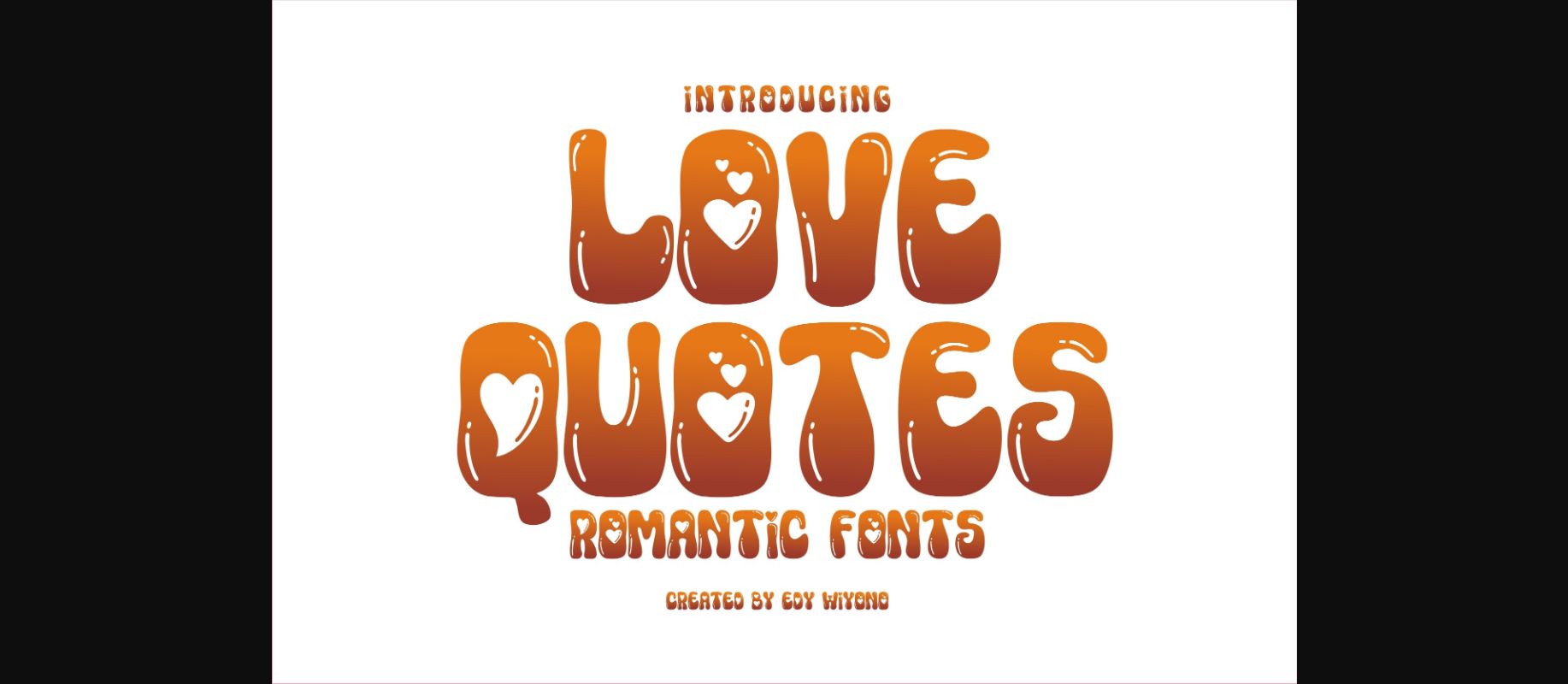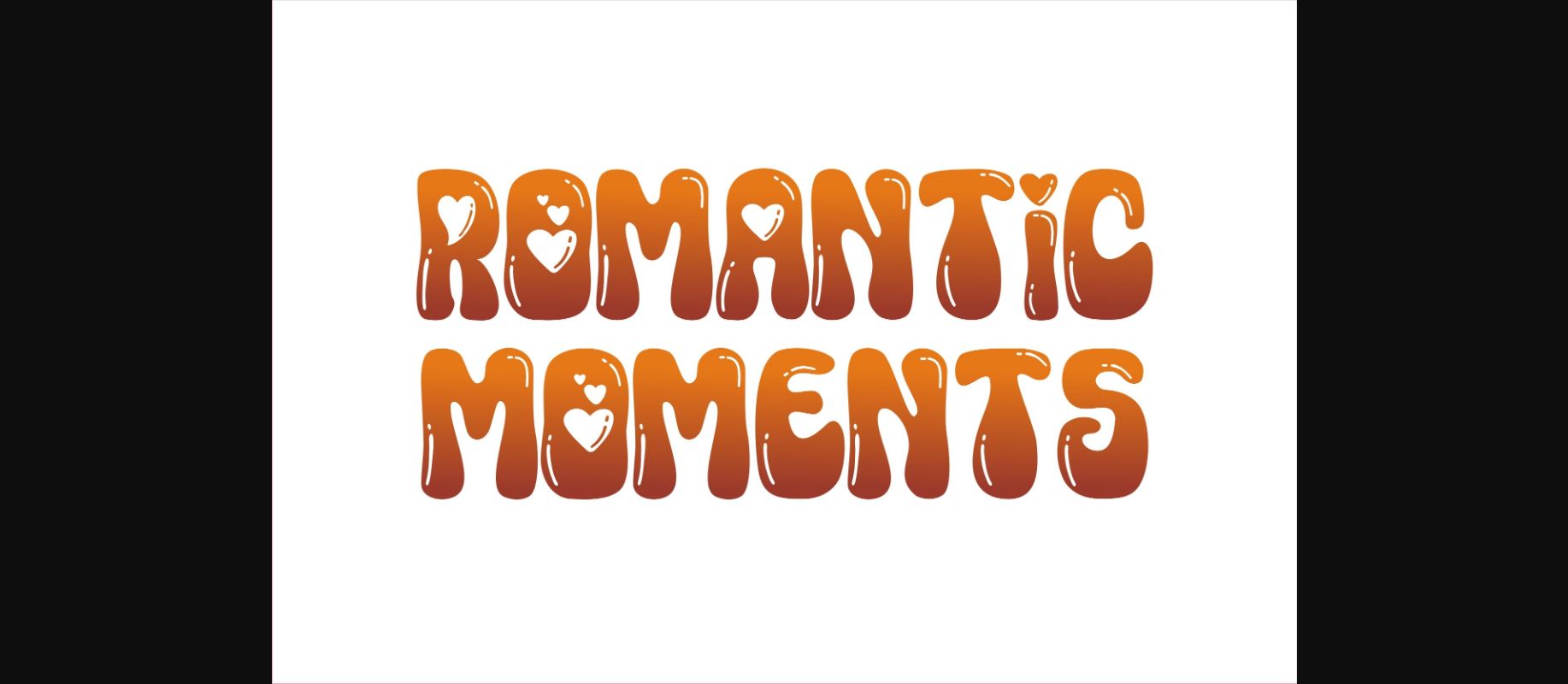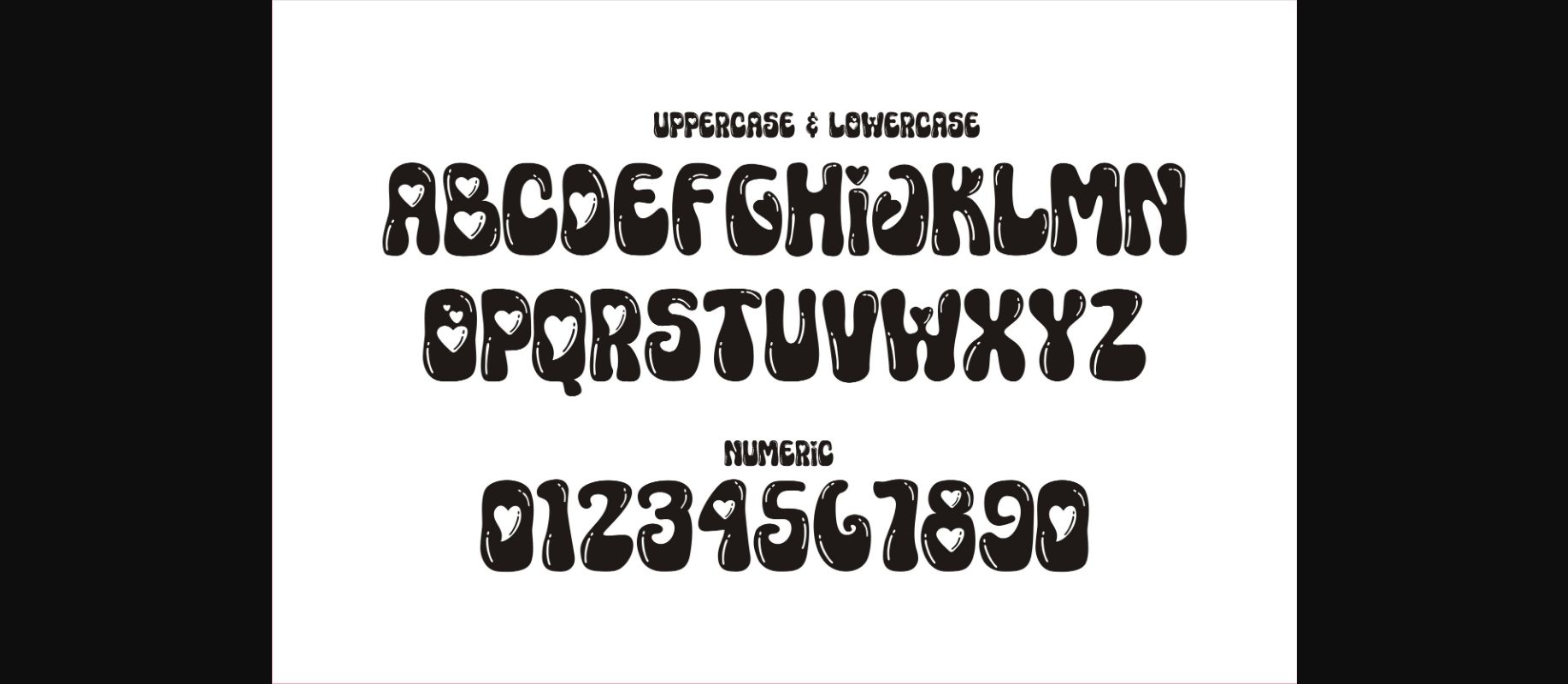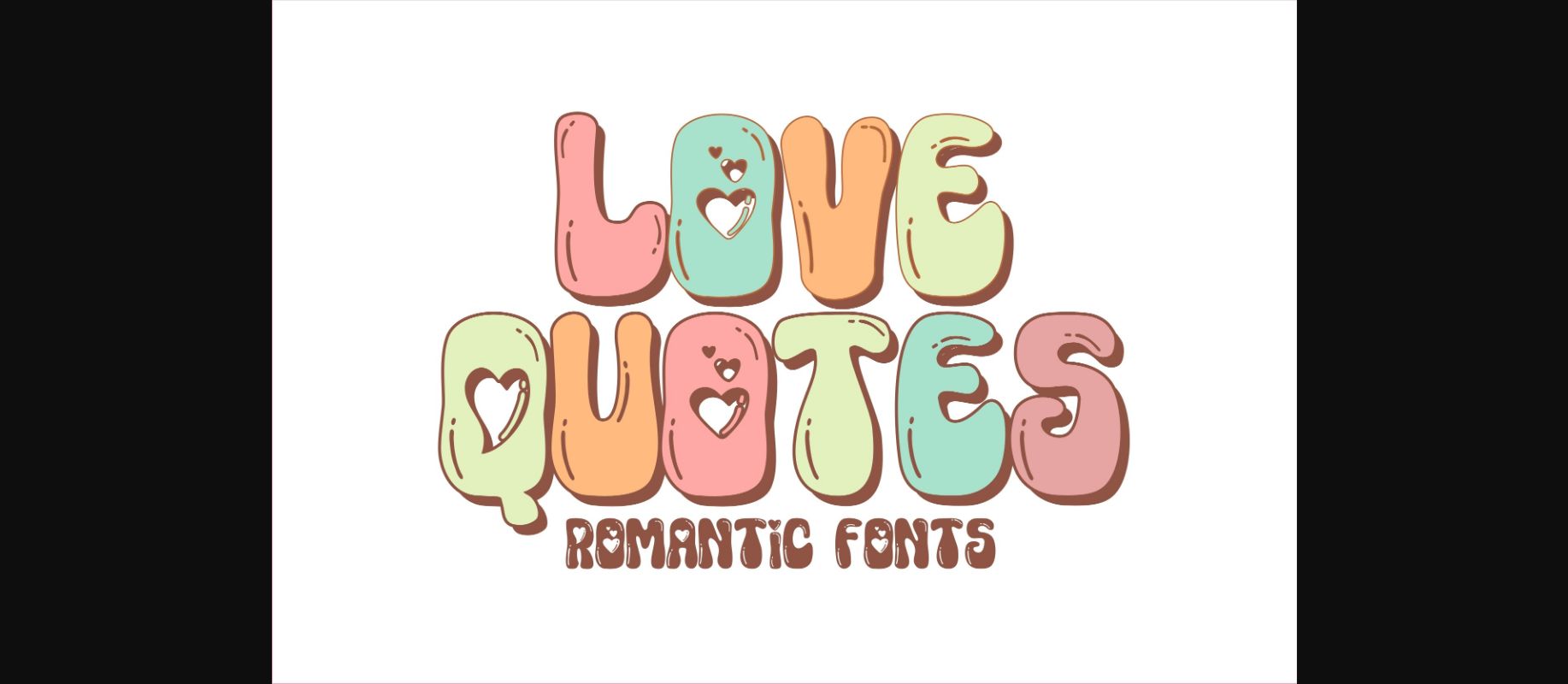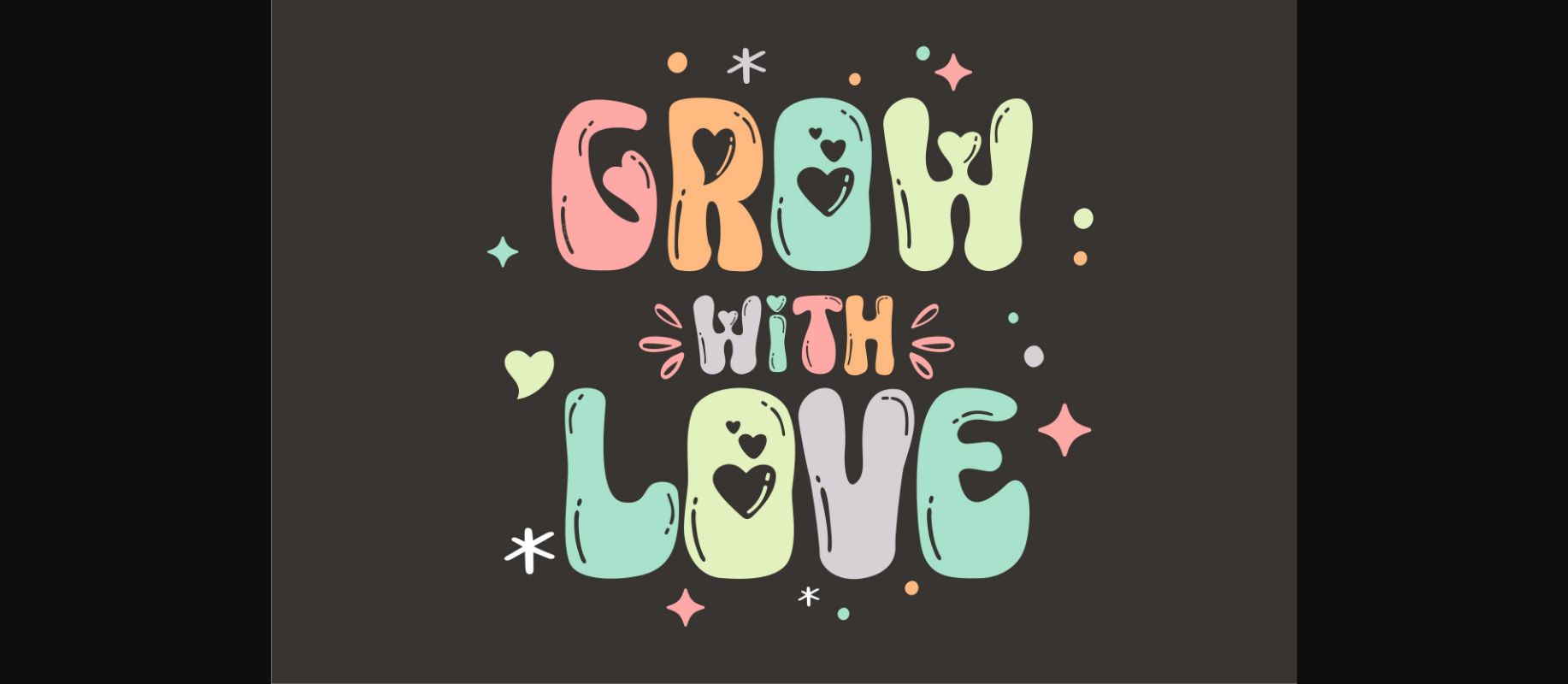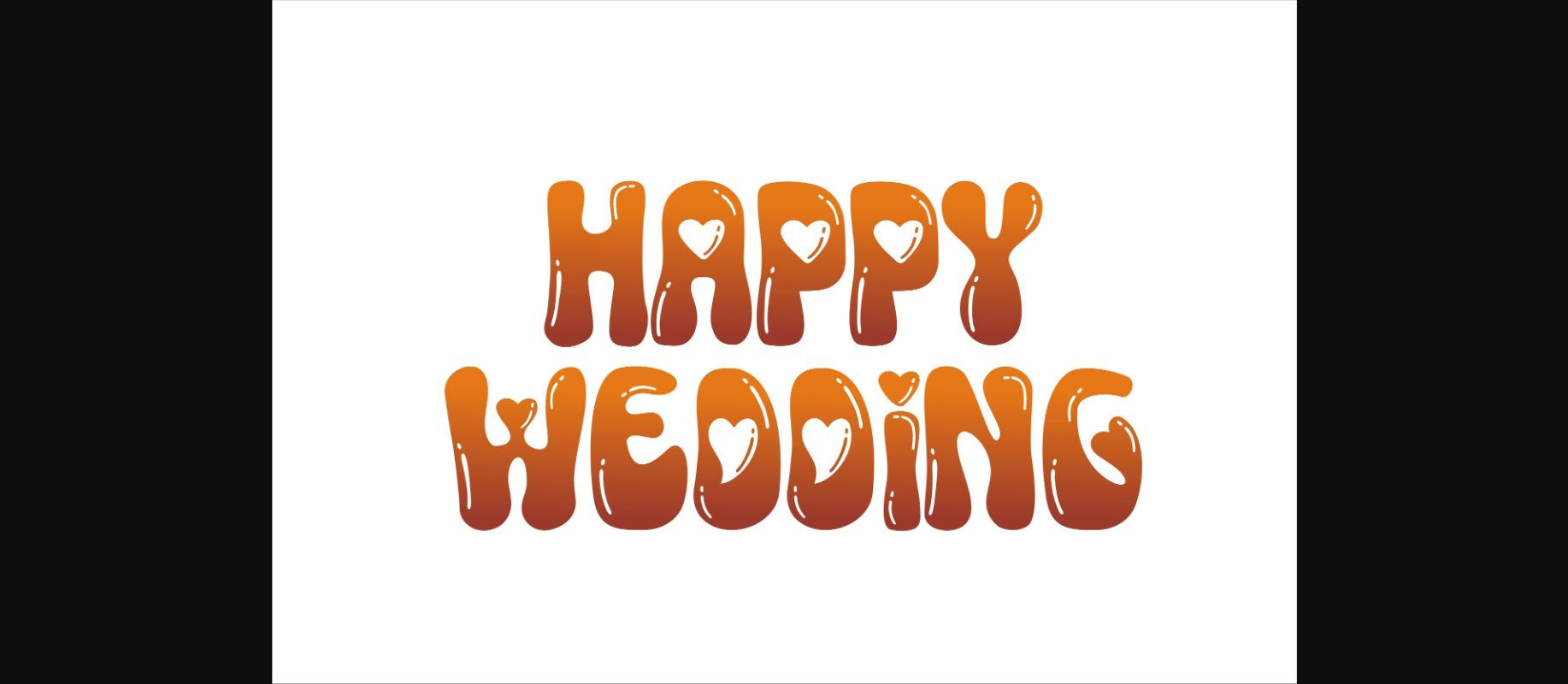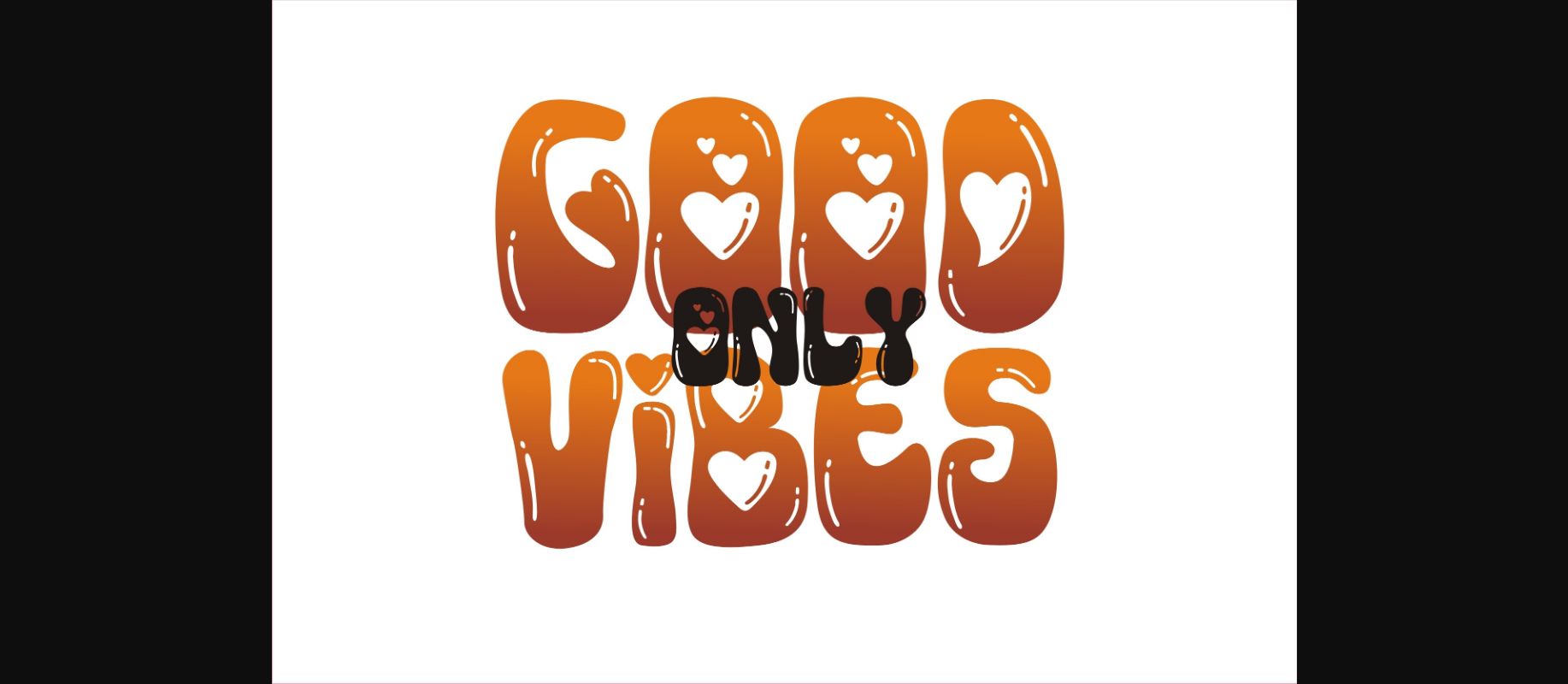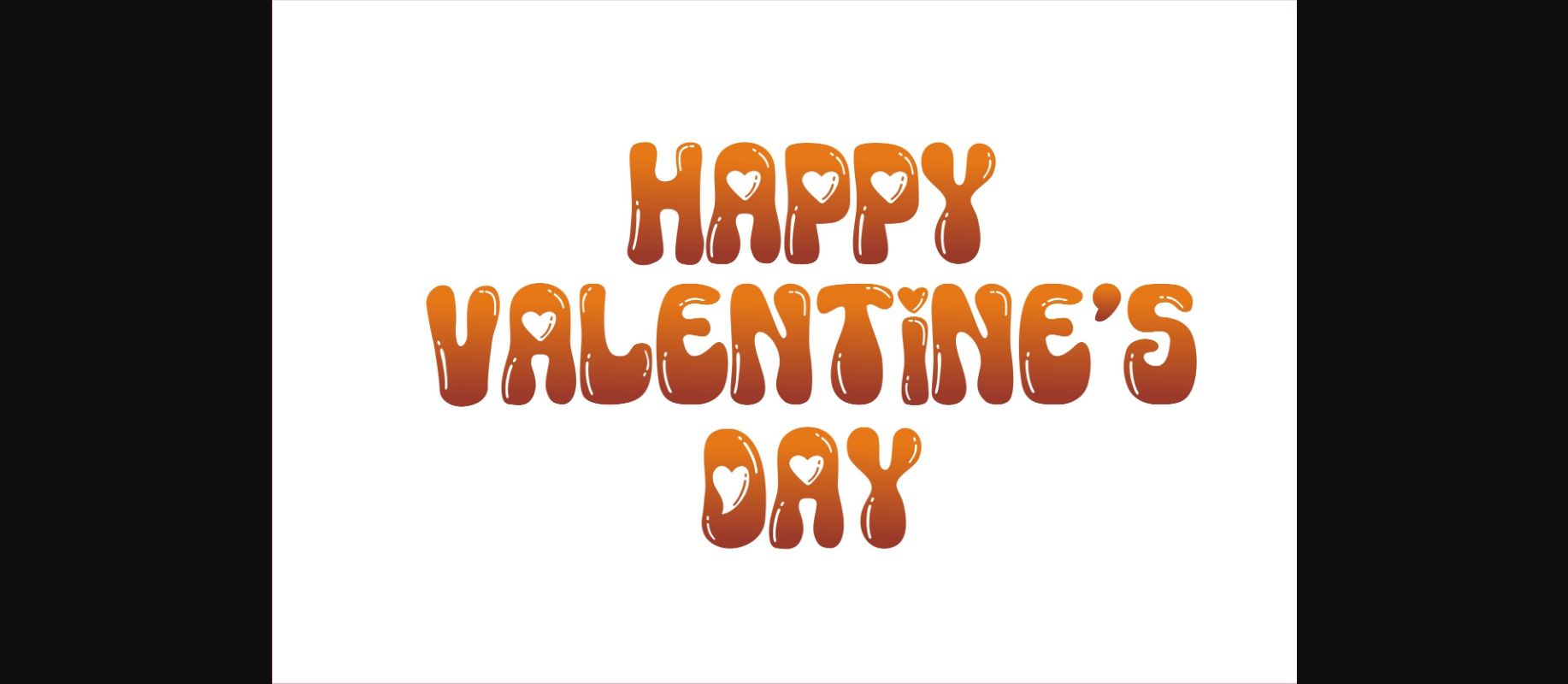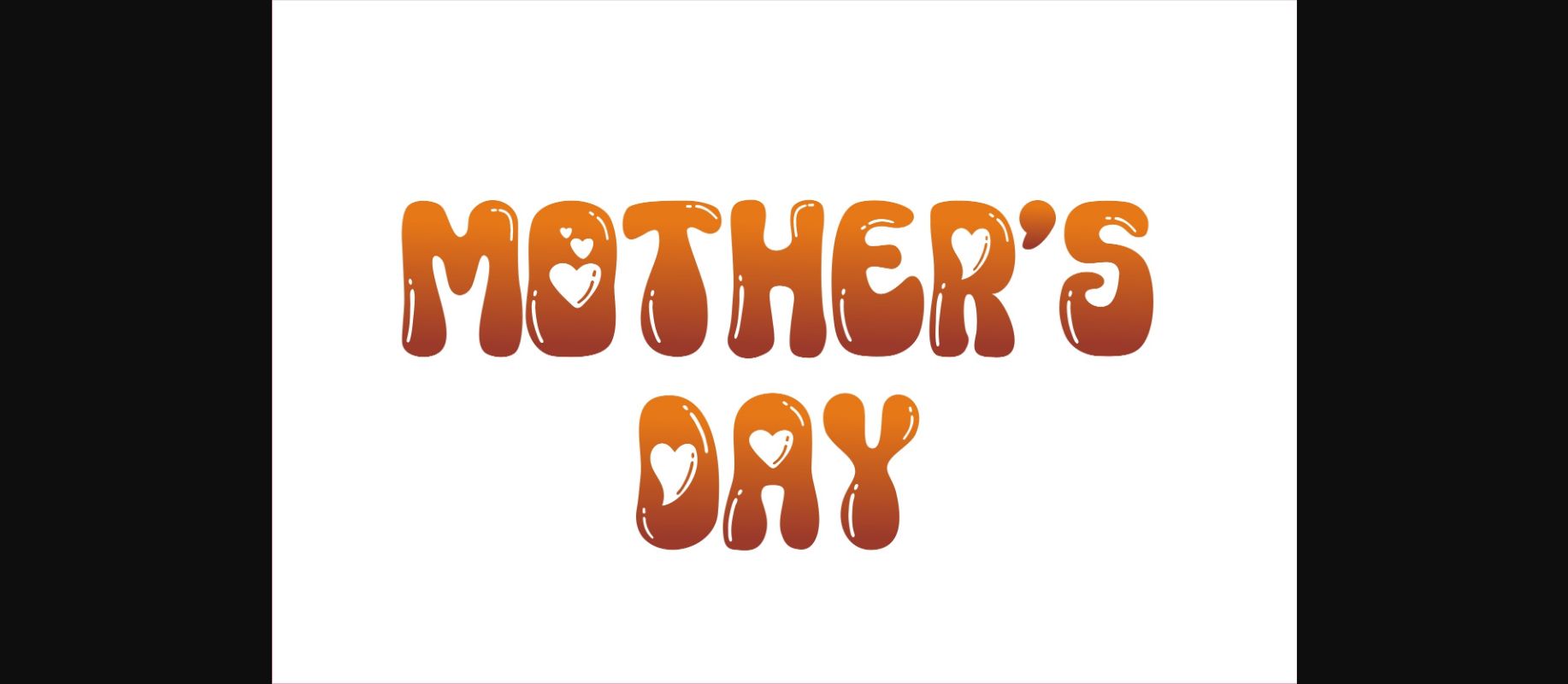
Love Quotes Font
Love Quotes is a fun and quirky decorative font. No matter the topic, this font will be an incredible asset to your fonts’ library, as it has the potential to elevate any creation.